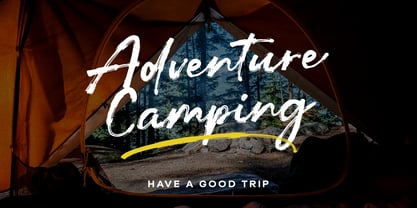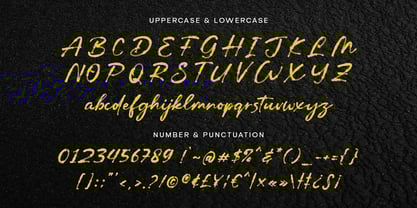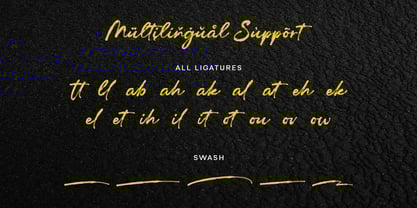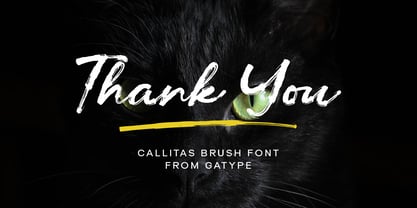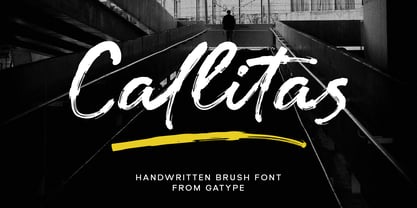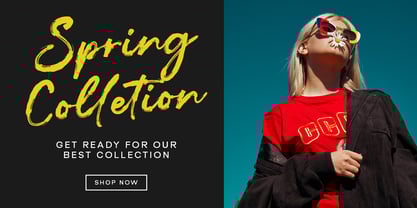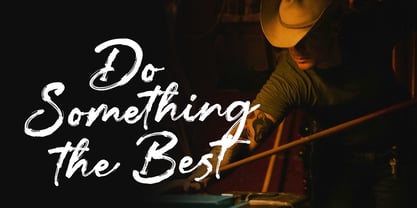
Callitas
by Gatype
The Callitas Font Family was designed by khaidir and published by Gatype. Callitas contains 1 styles.
Callitas is a brush script written in a relaxed and fast way. Letters made with brush pen on paper. It is then carefully scanned and drawn into vector format. That's why Callitas has organic, authentic and relaxed characteristics.
Callitas has two sets of lowercase letters to give your text variety and a more natural look. You can enable Contextual Alternate in the OpenType panel to have these two sets vary randomly. It also has many style and underline alternatives which make your text and designs more attractive.
Callitas has two versions Textured and Solid. The textured version has a dry brush pen texture and the Solid is a slightly cleaner version.